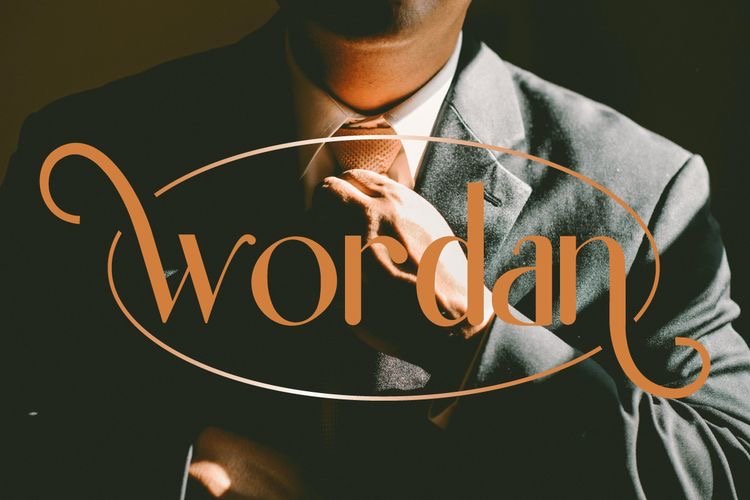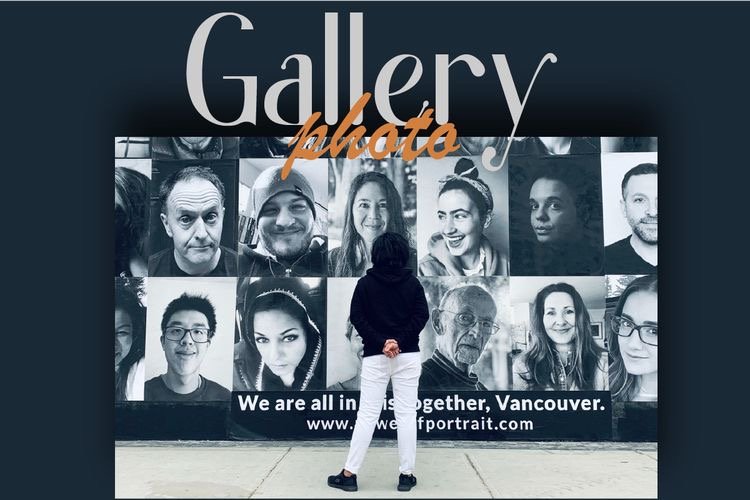
Moondana a beutiful sans serif fonthasnulhans (25)in #fonts • 4 years ago (edited)Moondana a modern- beutiful style sans serif font that create stunning logos, quotes, posts, blog posts. branding projects, magazine imagery, wedding invitations, and much more. #fontsansserif #logos #productdesign #branding #brandingproduct #projectdesign